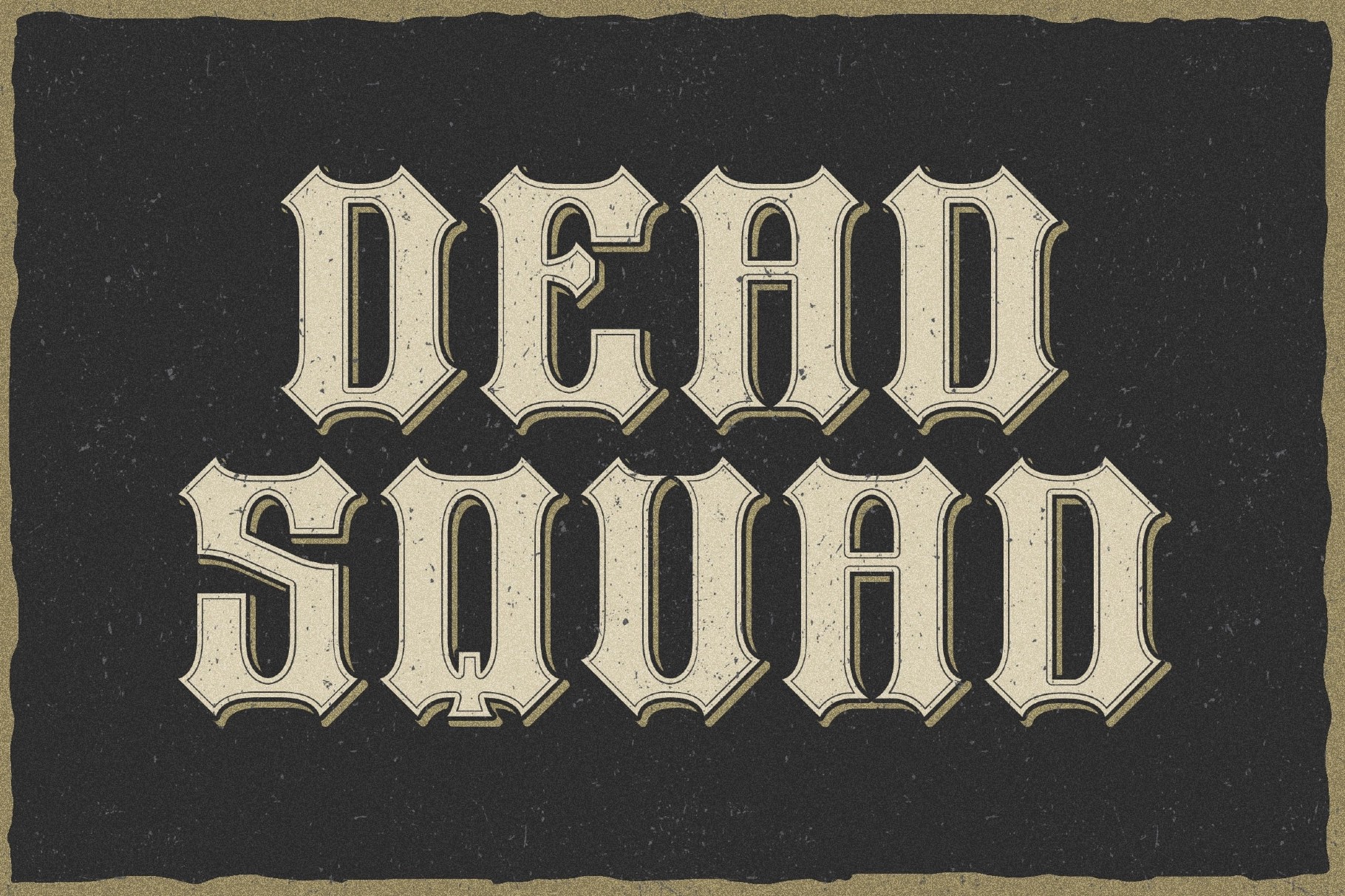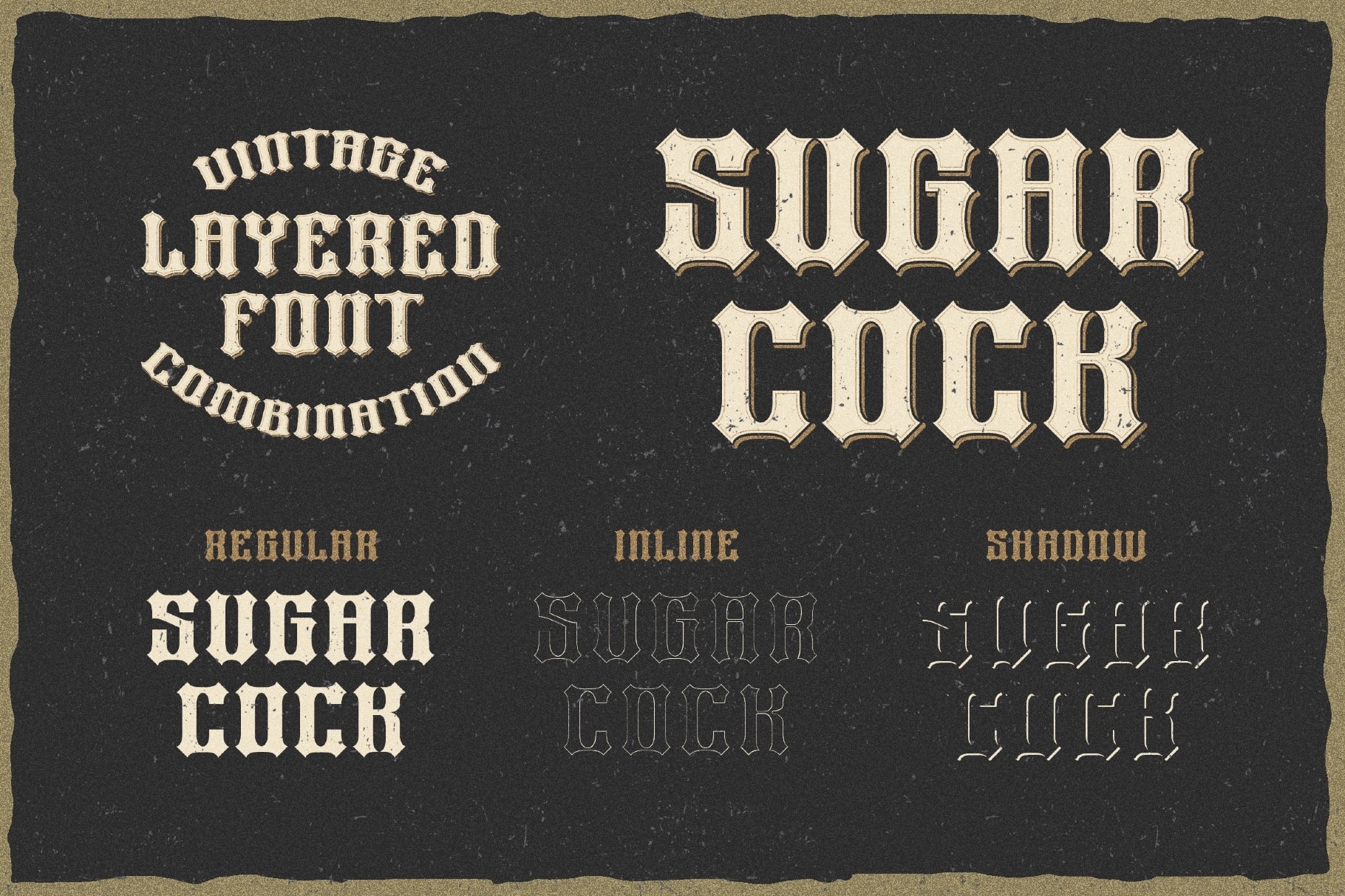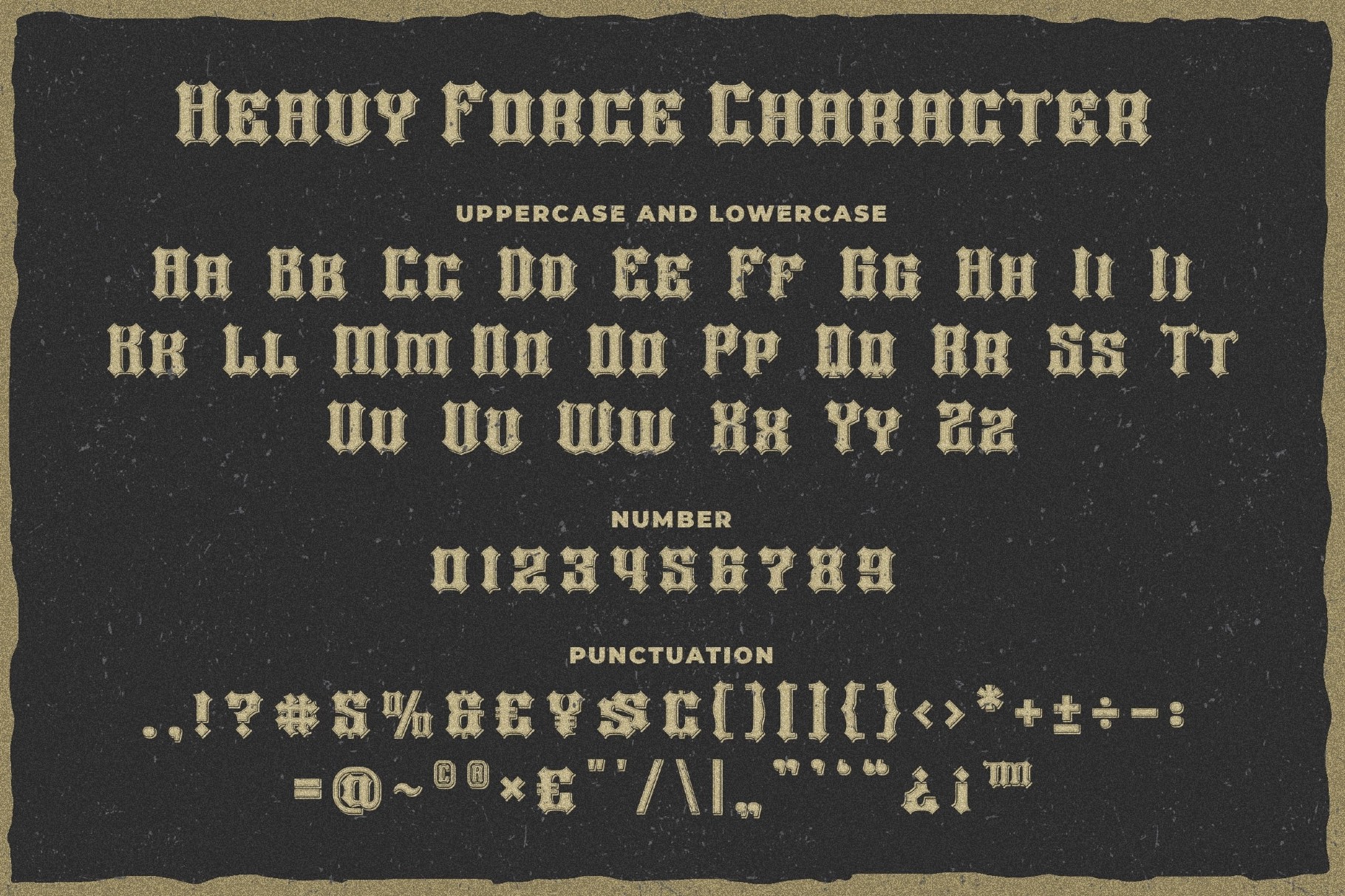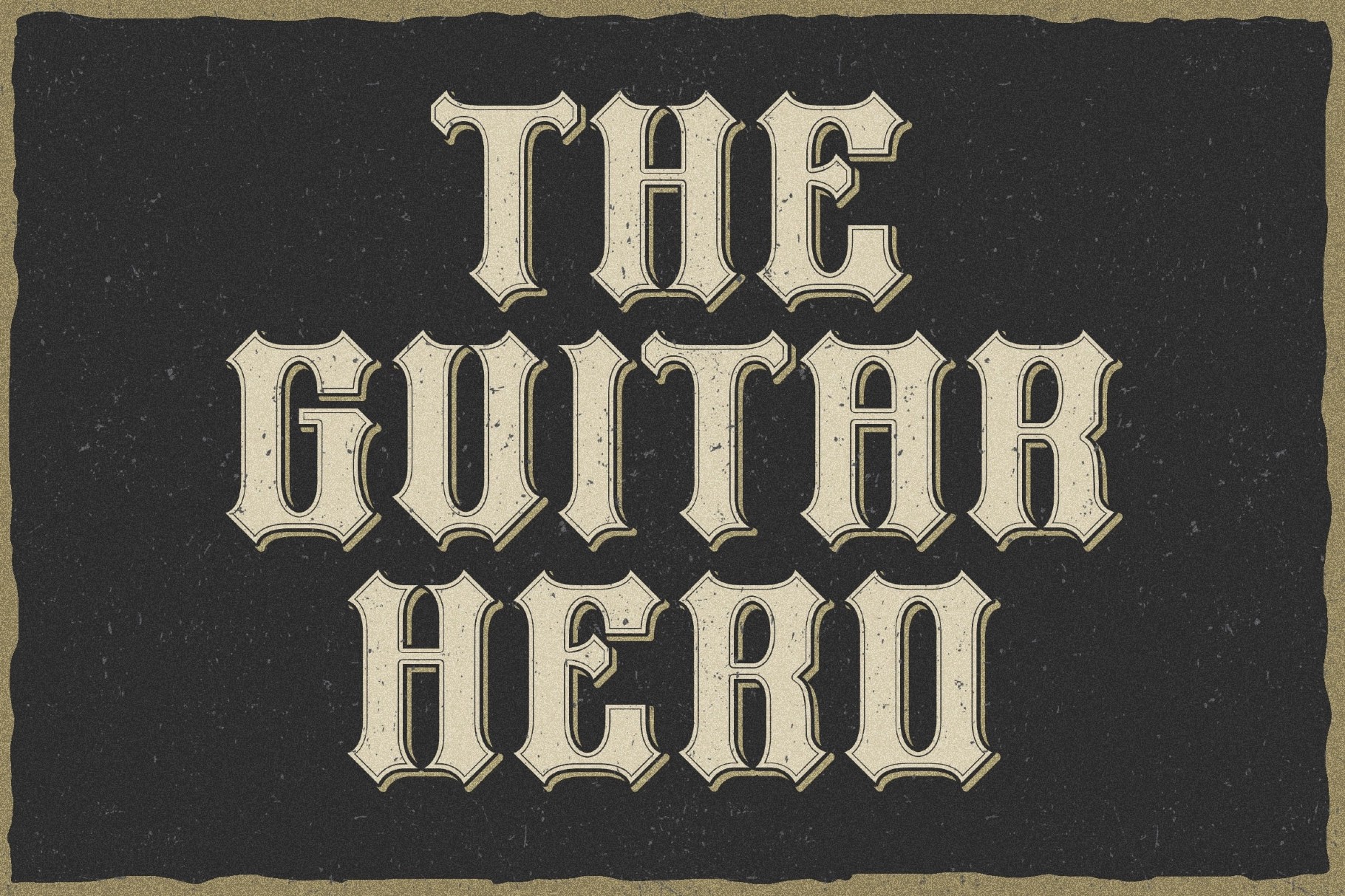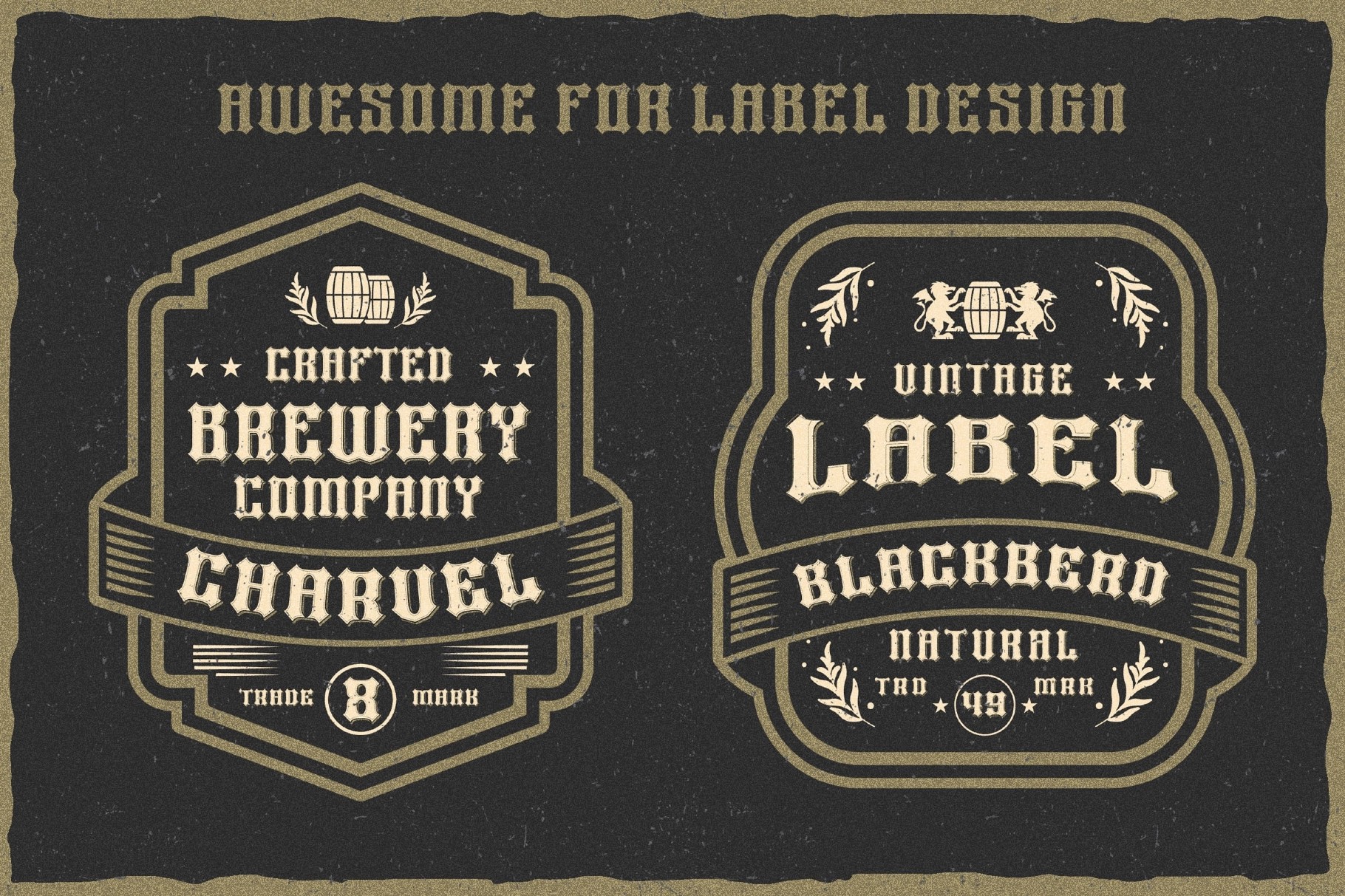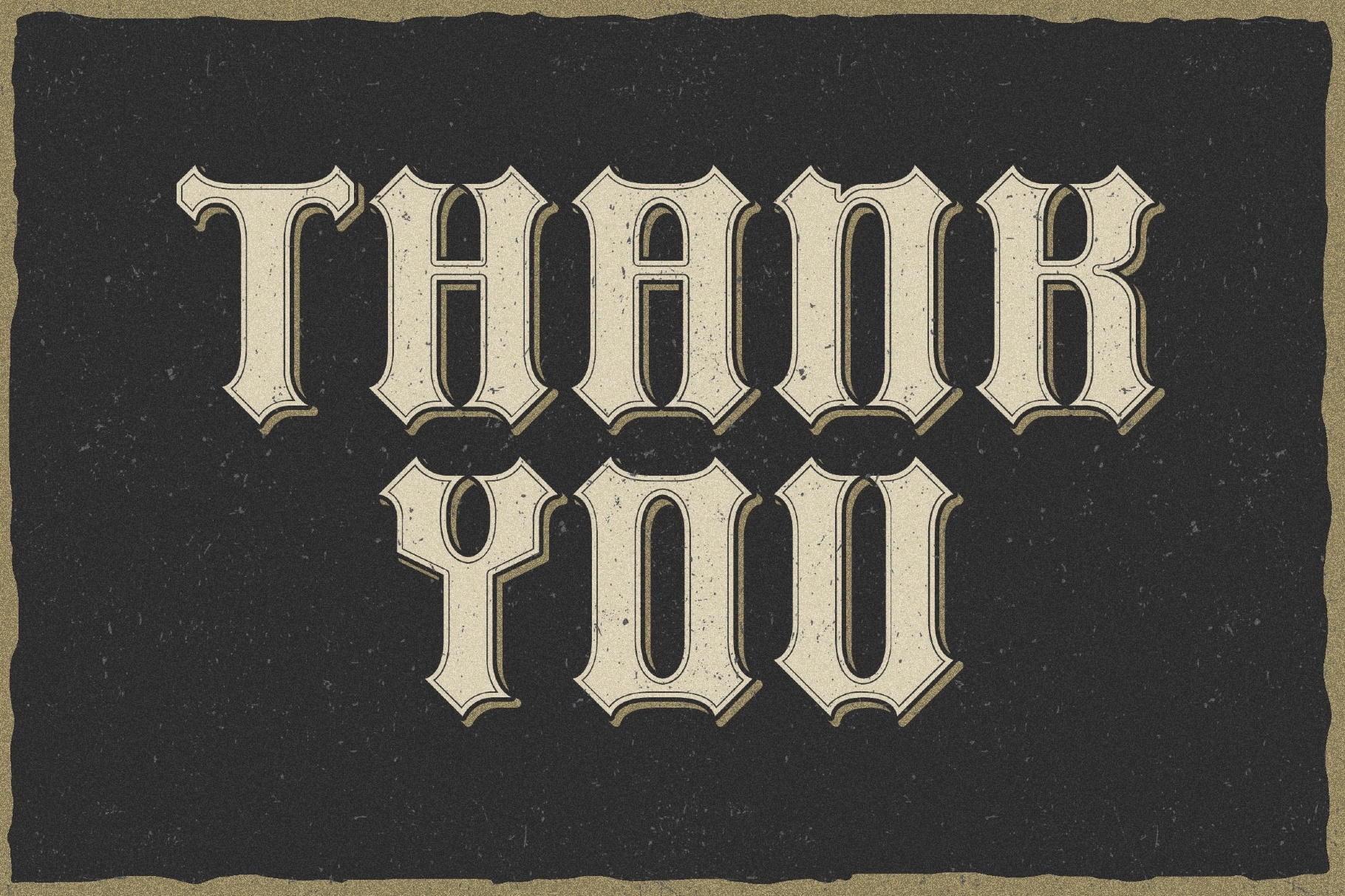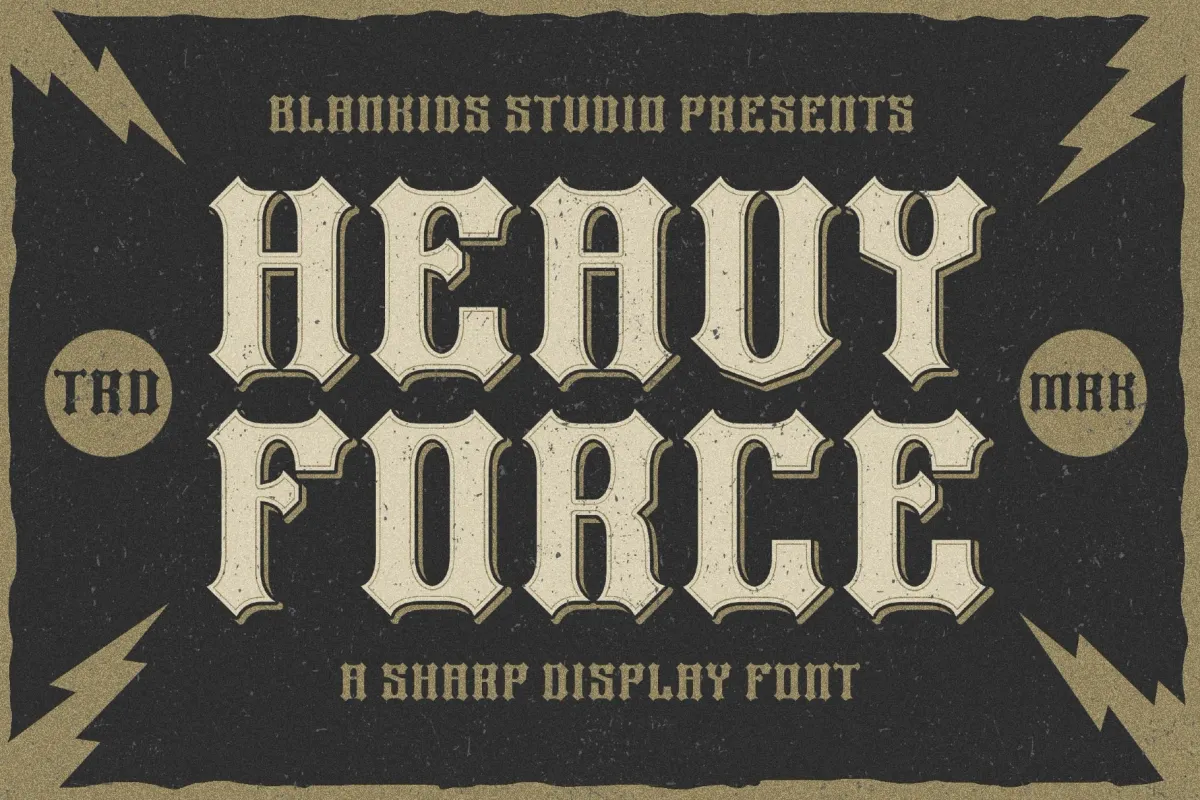
Heavy Force a Sharp Display Font
Inline
Shadow
Layered
Heavy Force a Sharp Display Font is a bold vintage-inspired typeface influenced by classic signage and old-school display lettering. Its sharp gothic shapes and strong structure create a striking retro look that instantly brings character and impact to your typography.
Designed as a layered display system, Heavy Force allows you to combine Regular, Inline, and Shadow styles to build rich vintage compositions. Perfect for posters, logos, packaging, merchandise, book covers, signage, and retro branding, this font delivers a timeless handcrafted aesthetic.
- Uppercase & lowercase characters
- Numbers & punctuation